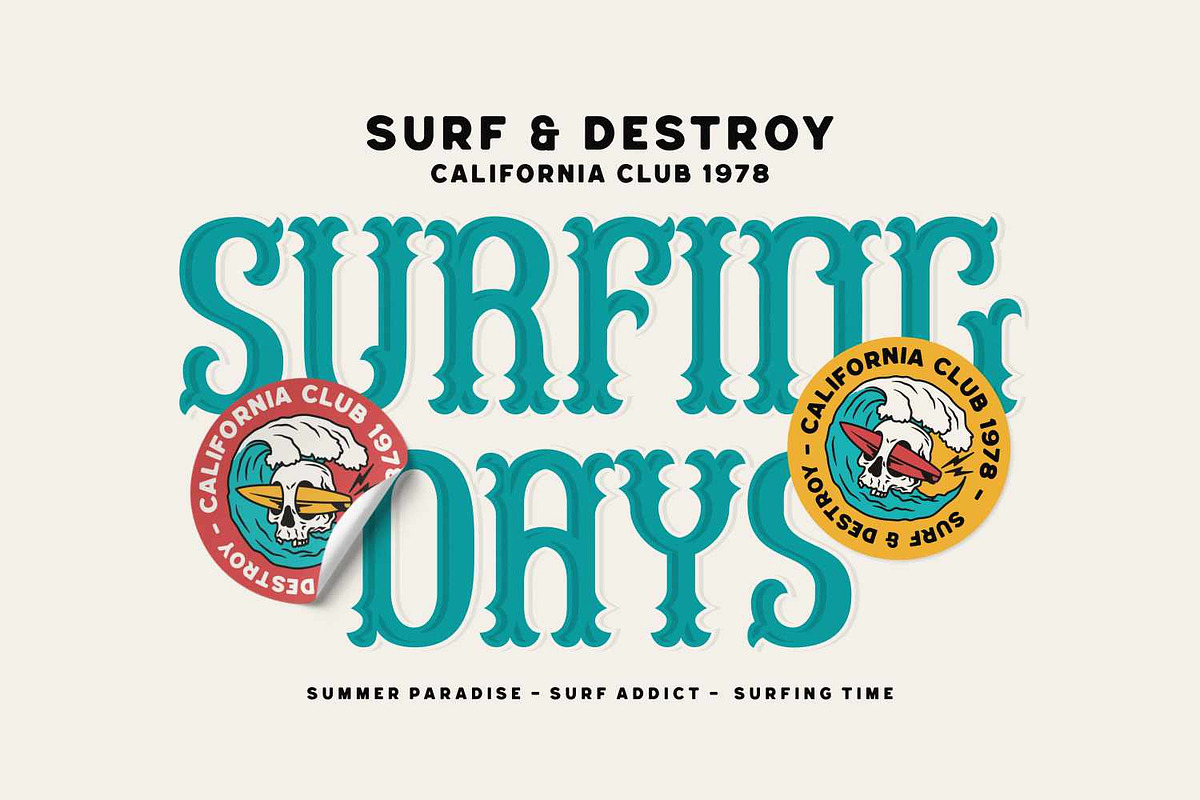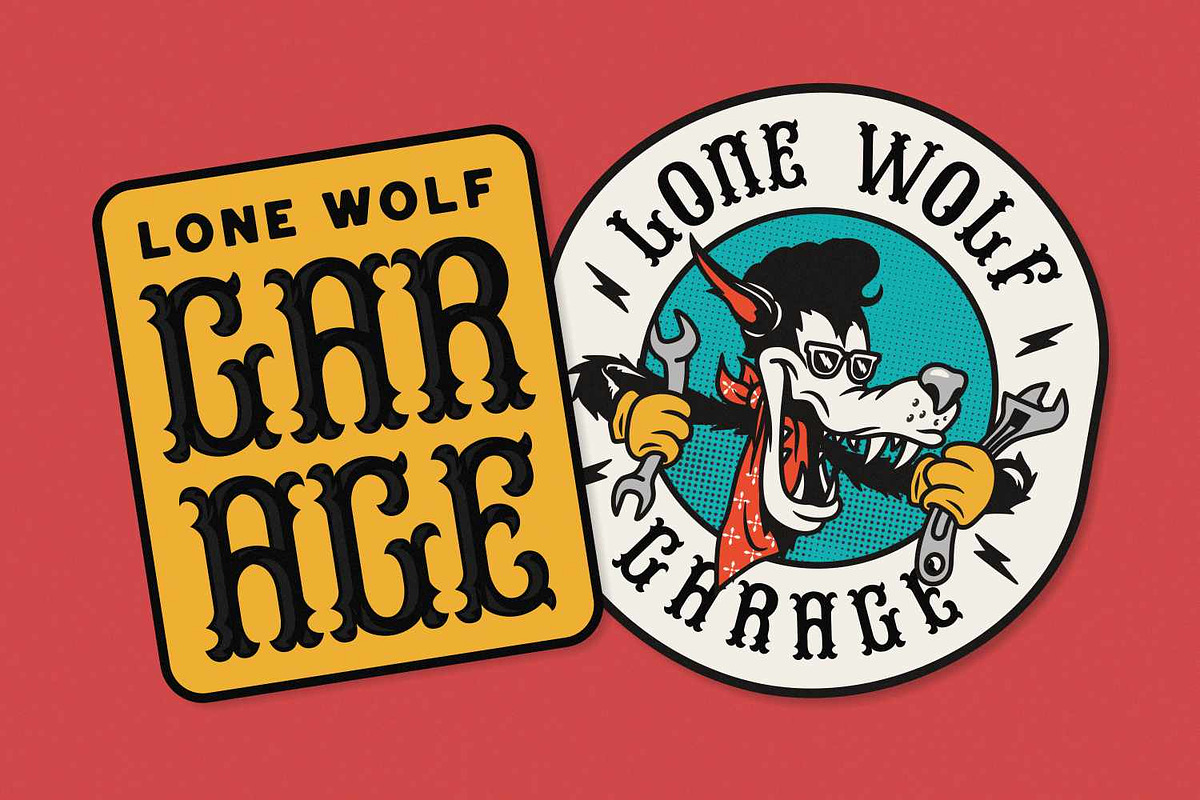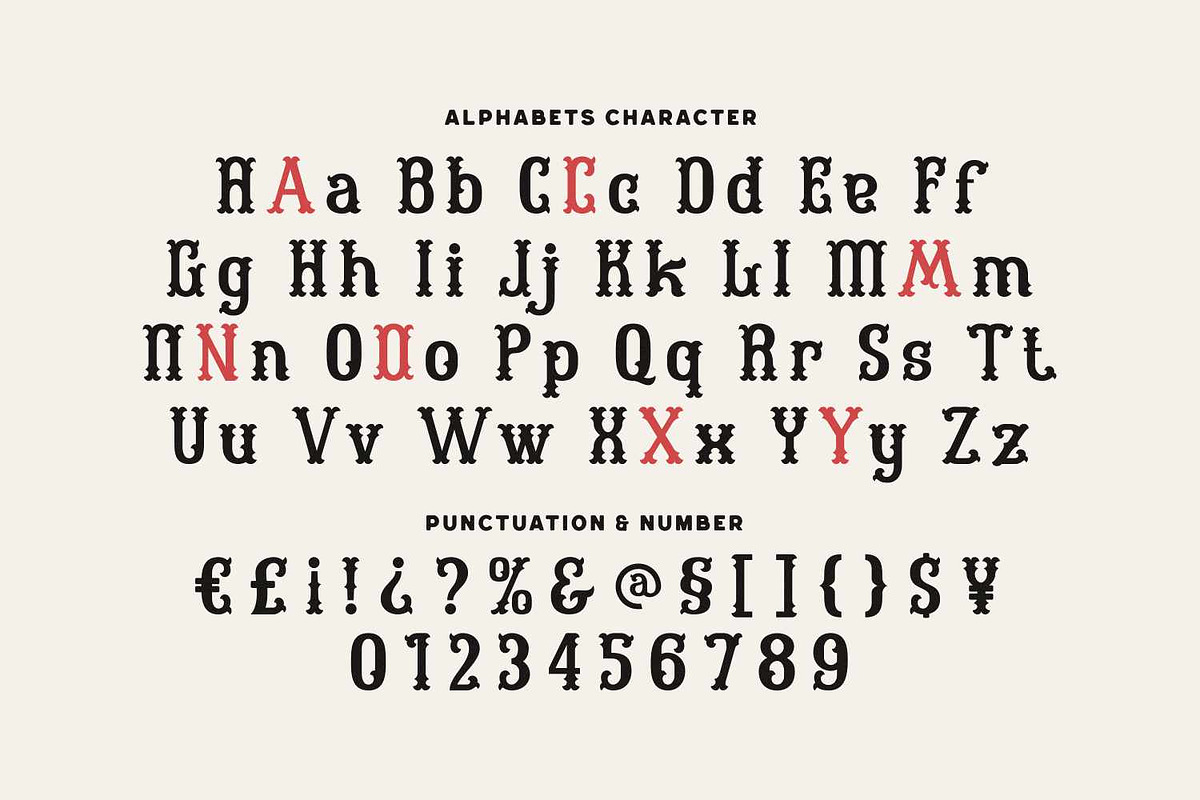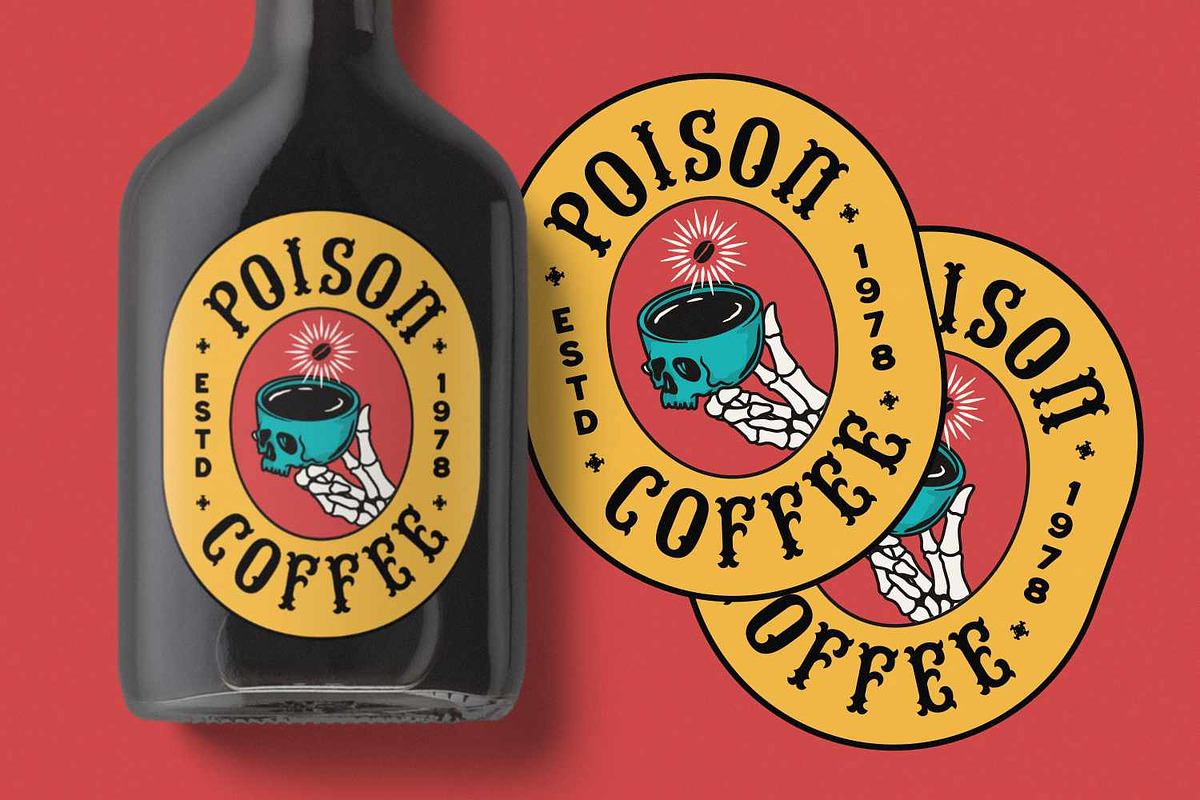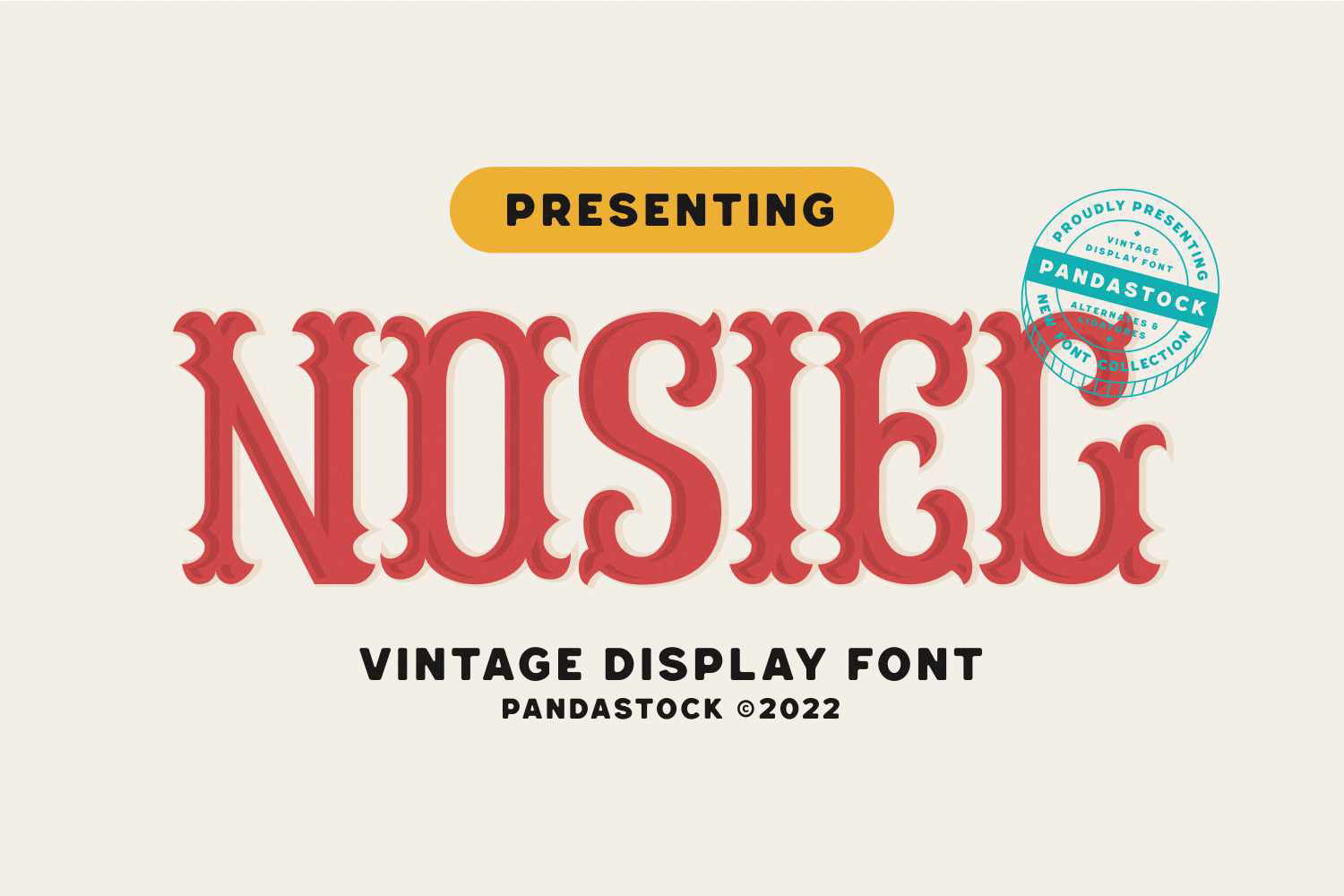
Nosieg - Decorative Vintage Font
Nosieg is a decorative slab serif typeface, inspired by vintage western and circus poster styles. The letterforms of this font feature robust, block like serifs that extend outward and terminate in ornaments symmetrical and spiked that evoke victorian era lettering but with a contemporary sense.
Nosieg feels nostalgic, and a bit theatrical perfect for evoking the feeling of 19th century posters, wild west themes, headlines, posters, circus signage, event invitations or graphics for festivals, fairs, or shows, or any project aiming to capture attention and evoke nostalgia.
Uppercase and Lowecase Characters.
Numerals and Punctuations.
Alternates and Ligatures.